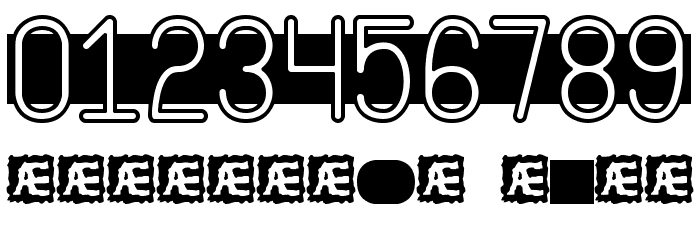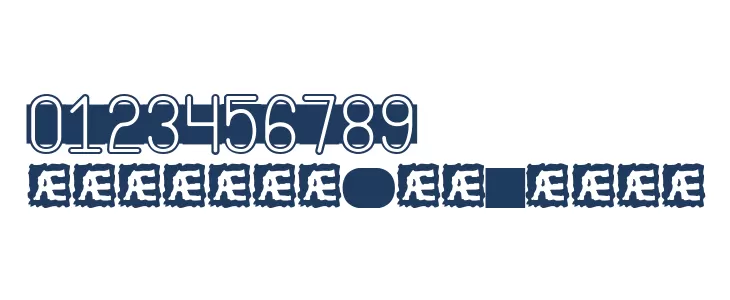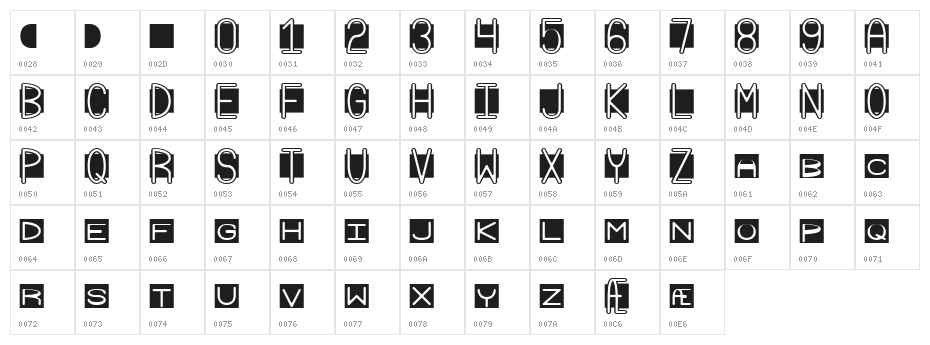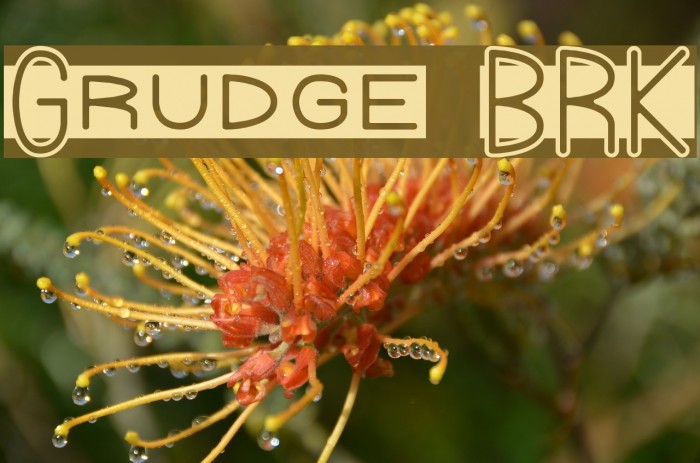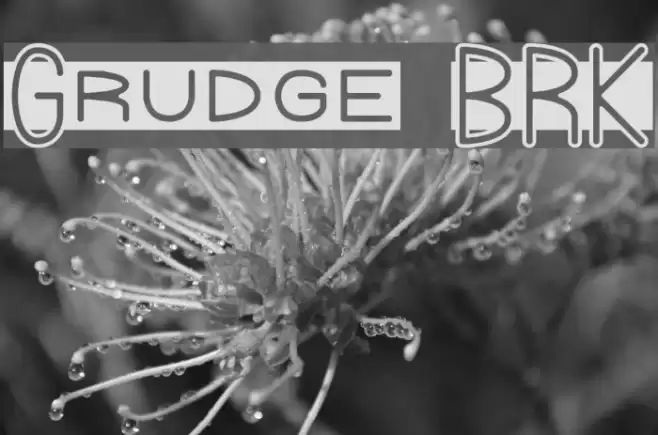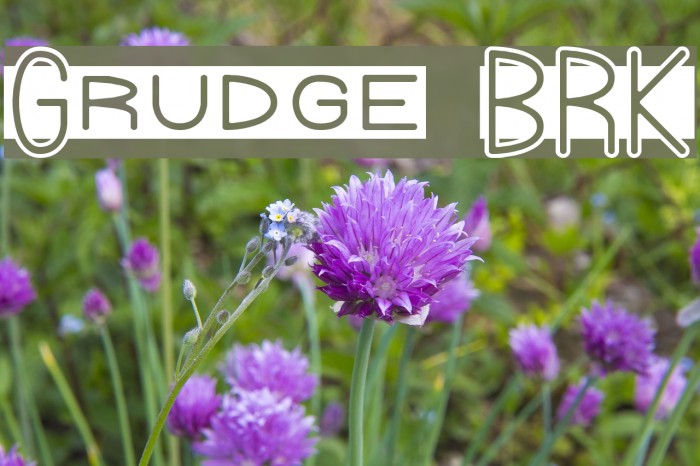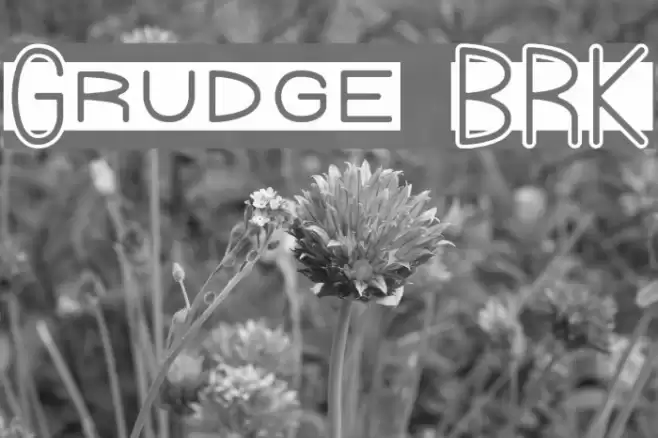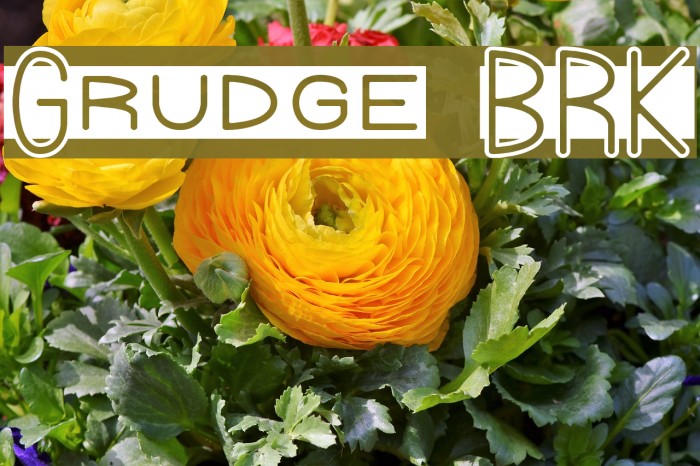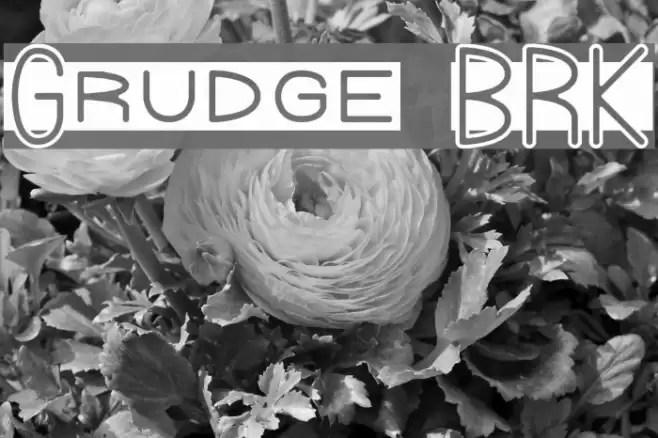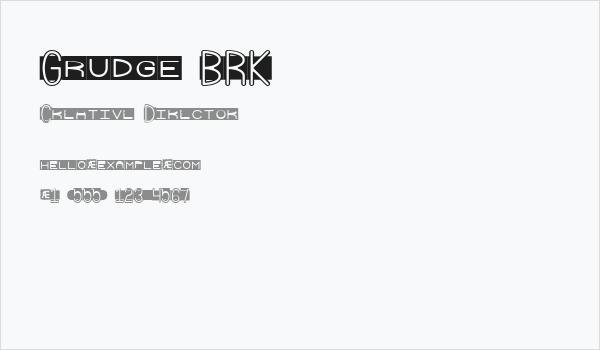
Grudge BRK Font
Grudge BRK Description
This font features a bold and playful design with a distinct outline style. The uppercase letters are characterized by thick, rounded strokes with a hollow interior, creating a striking contrast against the solid background. The lowercase letters maintain the same playful aesthetic, with consistent stroke thickness and a slightly condensed form. Numbers follow the same design principles, ensuring uniformity across all characters. Special characters are creatively integrated, maintaining the font's unique style. This font is ideal for projects that require a fun and eye-catching look.
| Overall Style | Playful, Modern |
| Proposed Projects | Ideal for posters, children's books, playful branding, and creative digital content. |